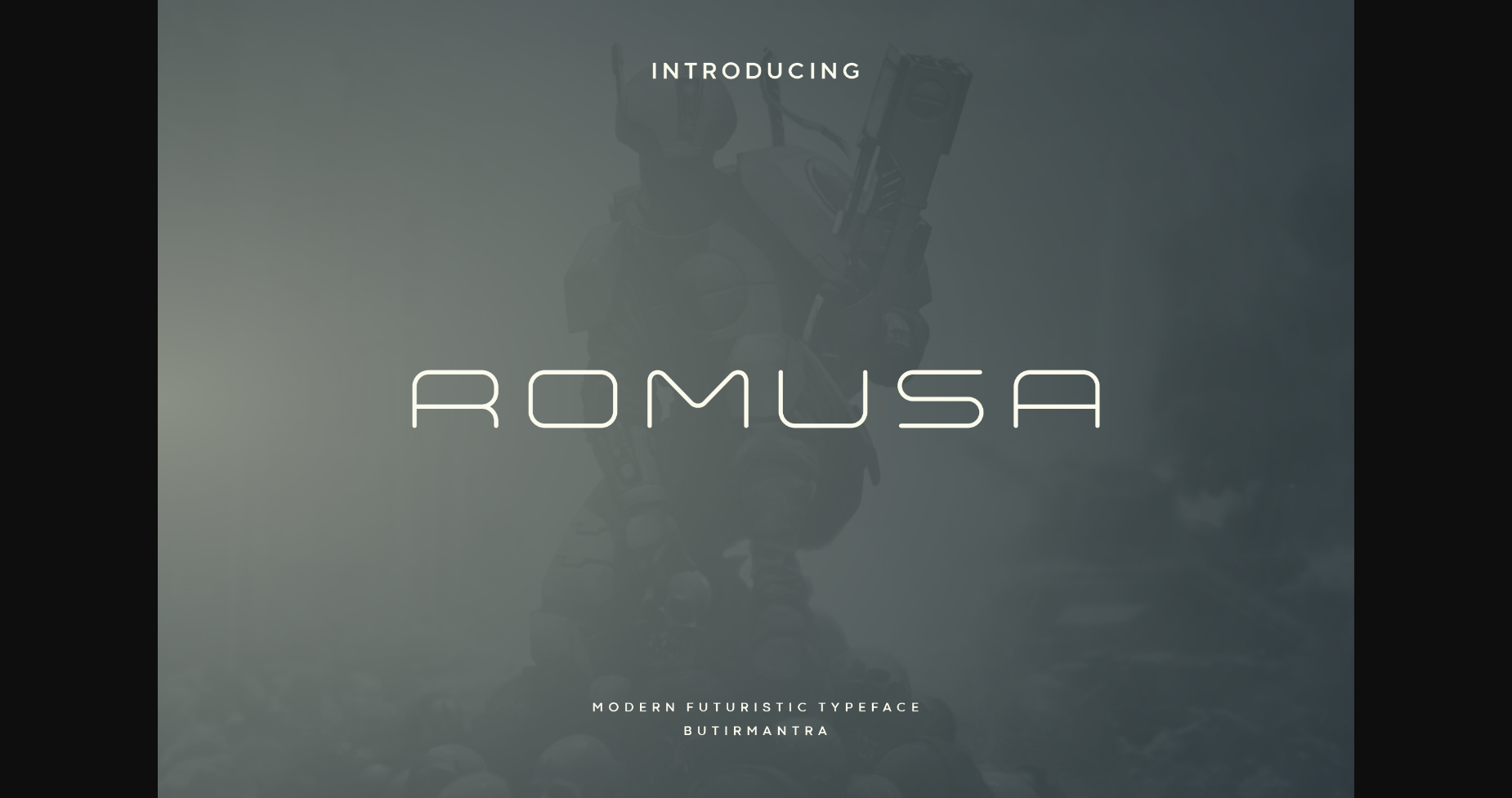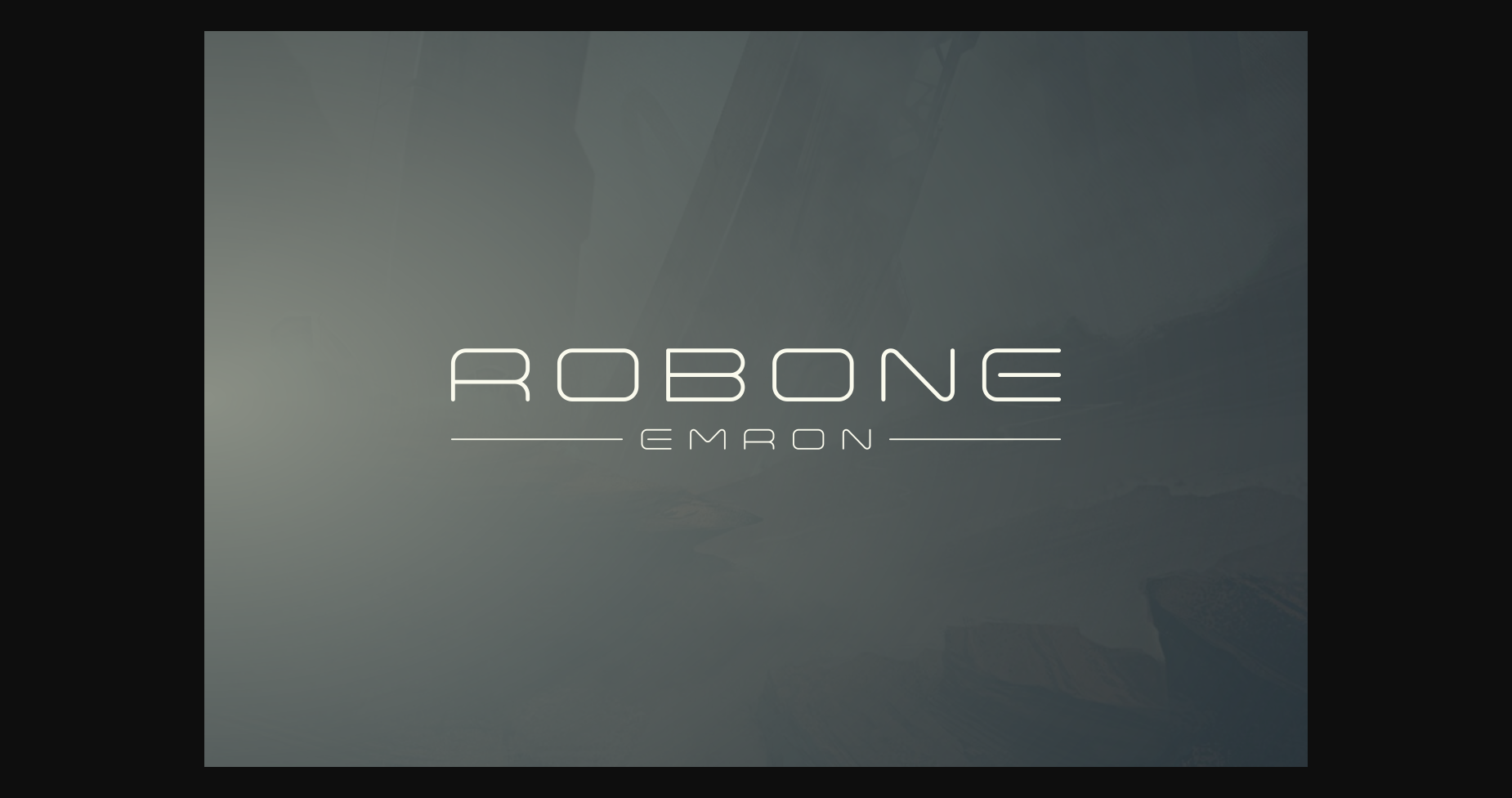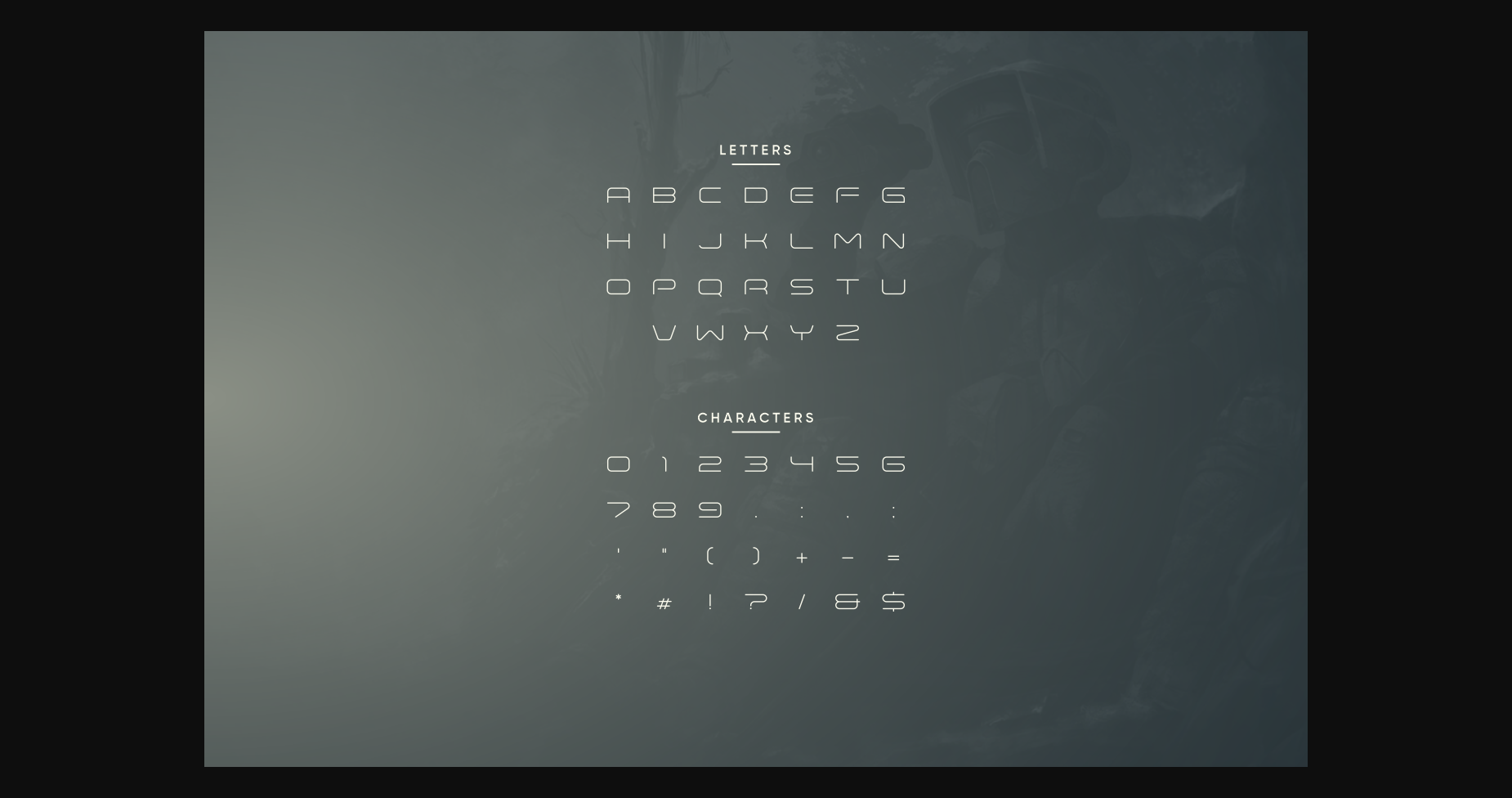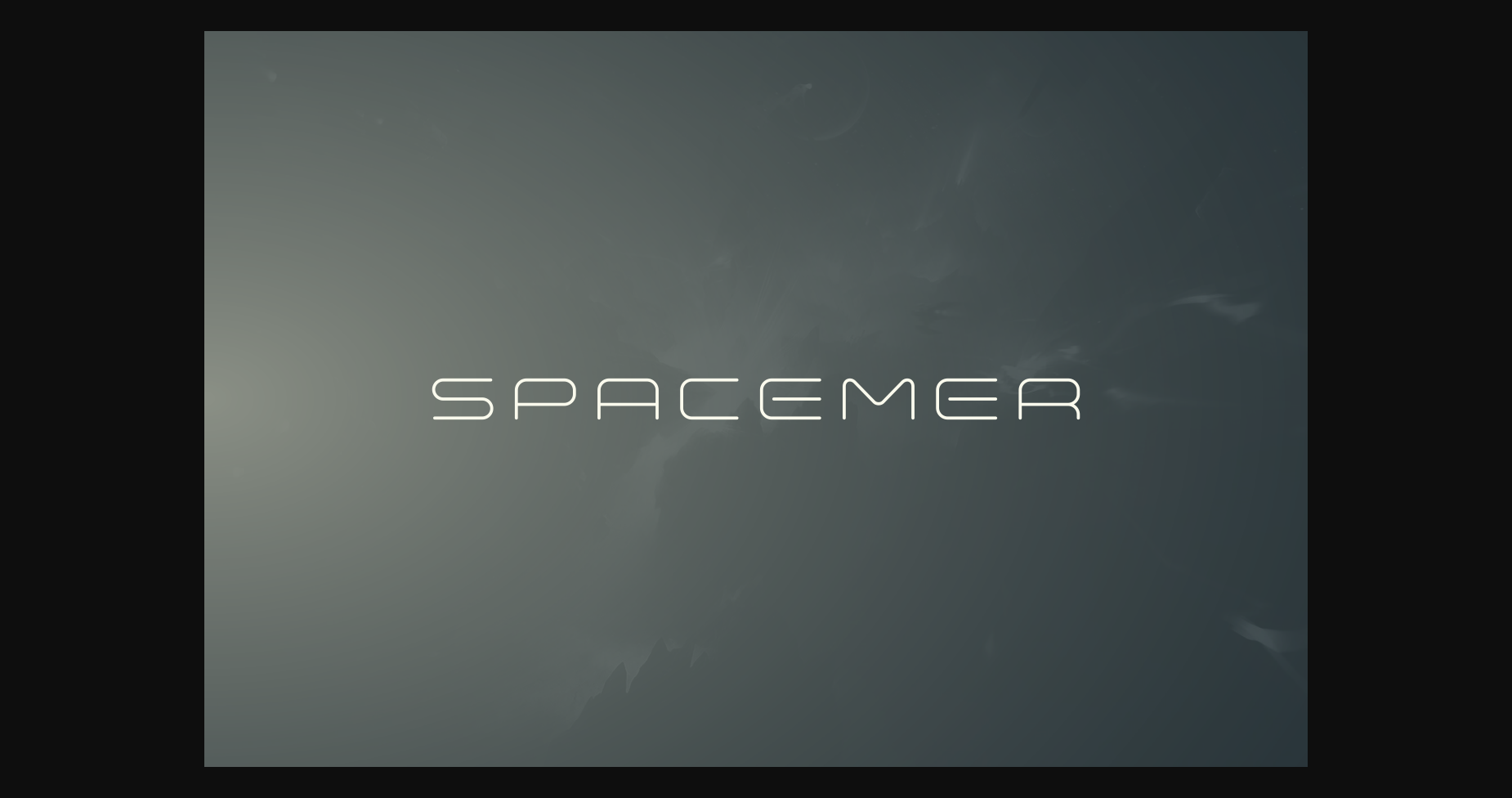
Romusa Font
About Romusa Font
Romusa is a fancy all-caps font that will make your designs look futuristic and modern, bringing a simple design to a clean and elegant look. You can use this font for any purpose, especially for creating future and technology designs. This font is great for logo design, poster, magazine, headline, and many other designs. Romusa is so sophisticated and modern that it will make your designs stand out!